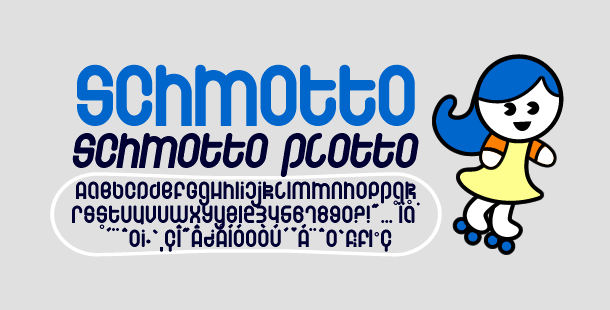
Schmotto
Today it is freezing cold in Chicago. The kind of cold that even Eskimos and snowboarders alike are all, "this is cold!" Schmotto is my first Chicago font that wasn't started with an idea in mind. I was just blindly piecing this thing together, and this is what I came up with. I also added an italic version for all you downhillers.
Schmotto
Schmotto Plotto
The Schmotto font family includes 235 glyphs.